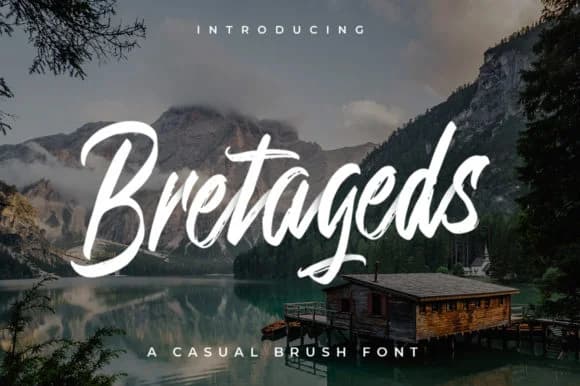
This brush script pulses with raw, textured energy that feels both polished and organic at once. Bretageds, from designer indotitas, captures that rare balance between handmade character and intentional craft. The rough letterforms flow with natural rhythm, carrying enough personality to command real attention in any layout without feeling forced or artificial.
Wine labels for boutique vineyards, wedding invitations designed to escape sterile formality, handwritten event menus with genuine personality, and packaging for small artisan brands all showcase what this script does best. The textured brushwork pairs beautifully with organic photography and rich handmade aesthetics, creating visual rhythm that engages viewers across the entire composition. Even at smaller sizes, Bretageds maintains surprising readability, making it a smart choice for product labels, greeting cards, and event stationery where every fine detail needs to hold its ground.
Pair Bretageds with a clean, modern sans-serif for body copy and secondary text, allowing the script to anchor headlines and visual focal points where its texture can truly shine. This balance between rough brushwork and refined minimalism keeps your compositions feeling layered and intentional rather than chaotic or cluttered. Find Bretageds on Creative Fabrica and bring authentic brushed character to your very next design project.
Bretageds Font is a script font that shines as a display or heading face. Pair it with a clean sans-serif or serif font for body text β the contrast creates a clear hierarchy while the two styles stay balanced and easy to read.
Bretageds Font